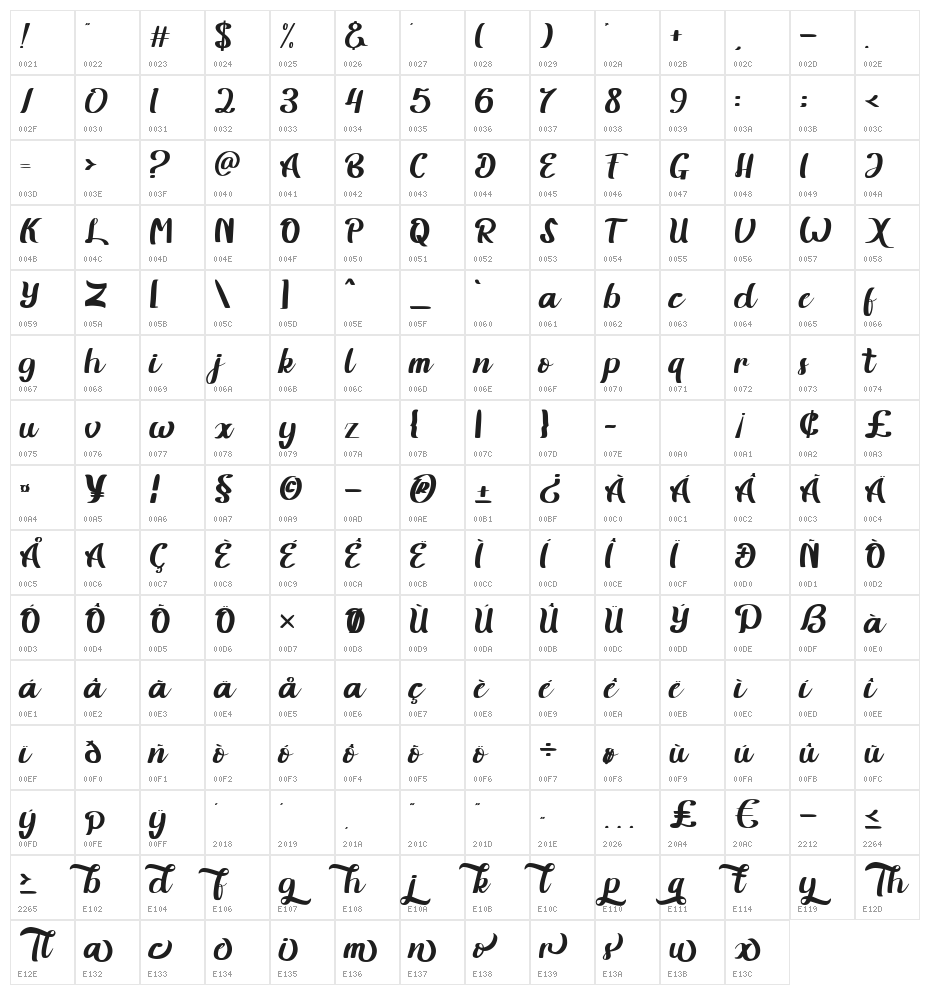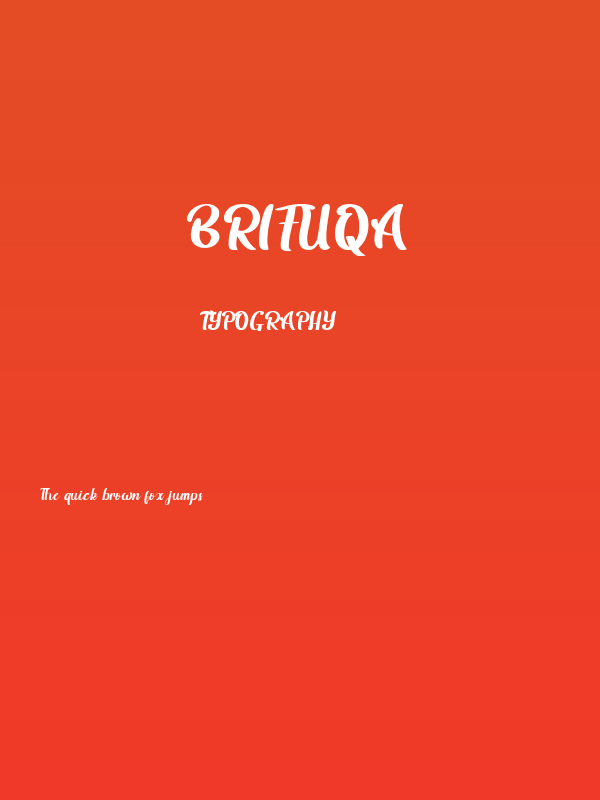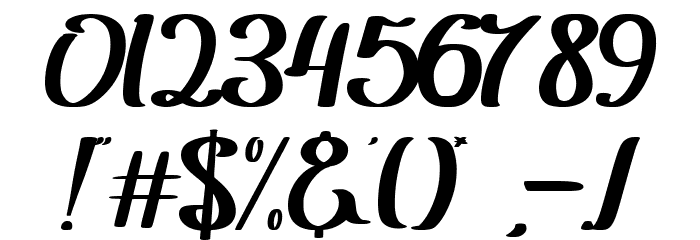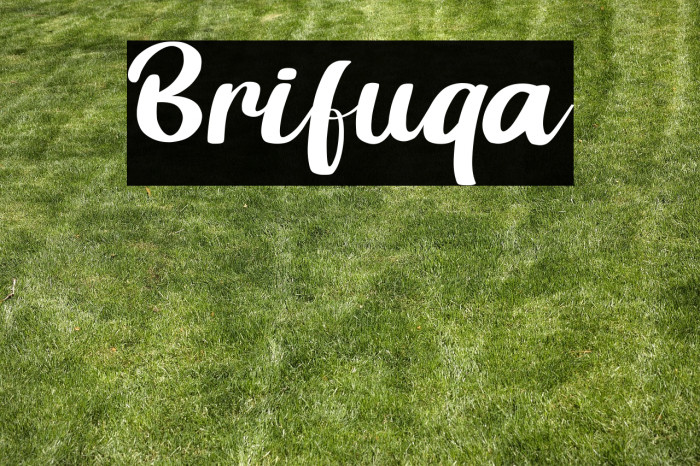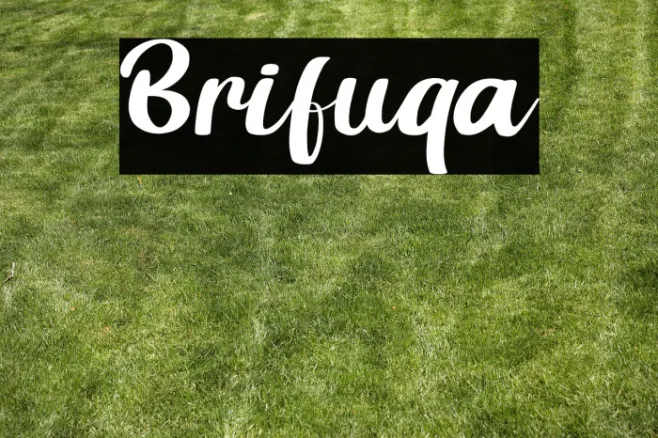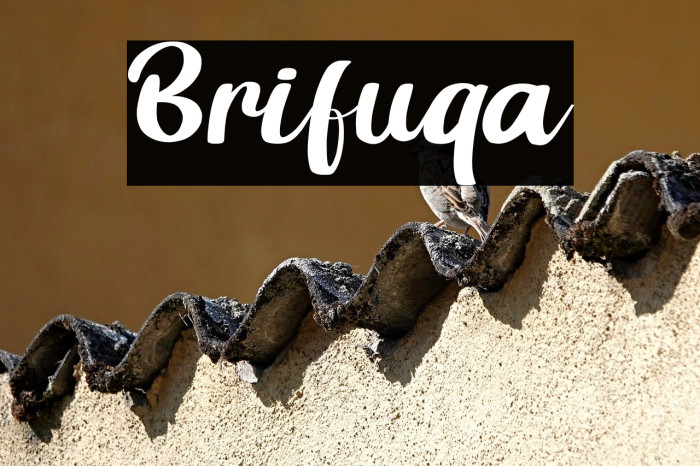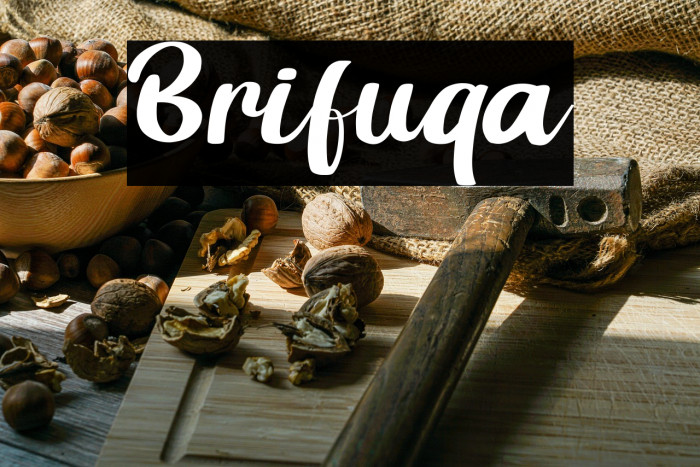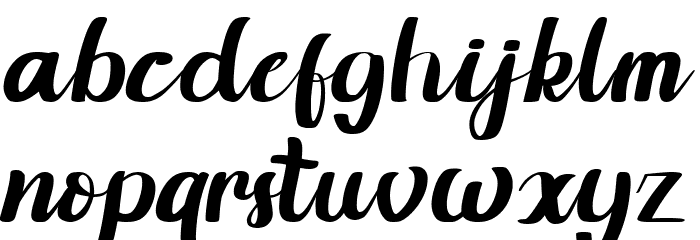
Brifuqa Font
Brifuqa Description
This font features a bold and expressive script style with a dynamic flow. The characters are interconnected with smooth, sweeping curves, giving it a lively and energetic appearance. The uppercase letters are slightly more structured, while the lowercase letters exhibit a more fluid and cursive form. The numbers and special characters maintain the same stylistic consistency, ensuring a cohesive look across all text. The overall design is both elegant and playful, making it suitable for a variety of creative applications.